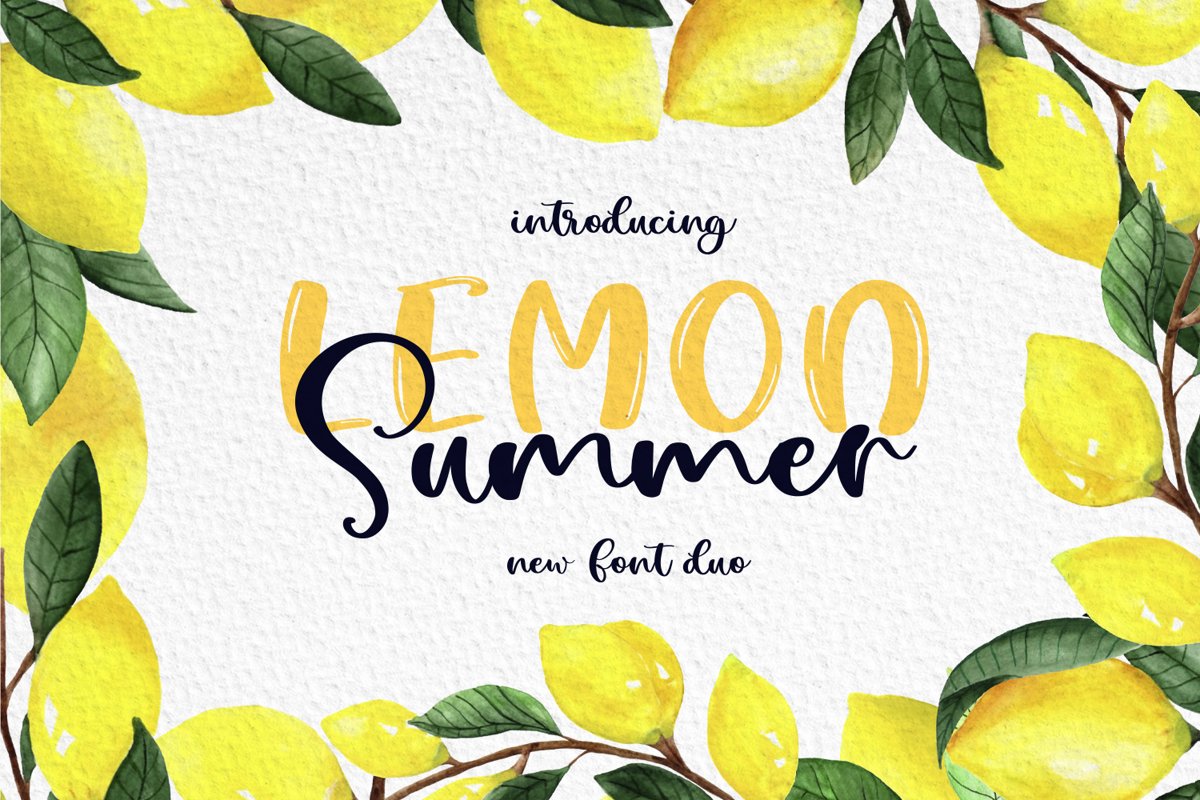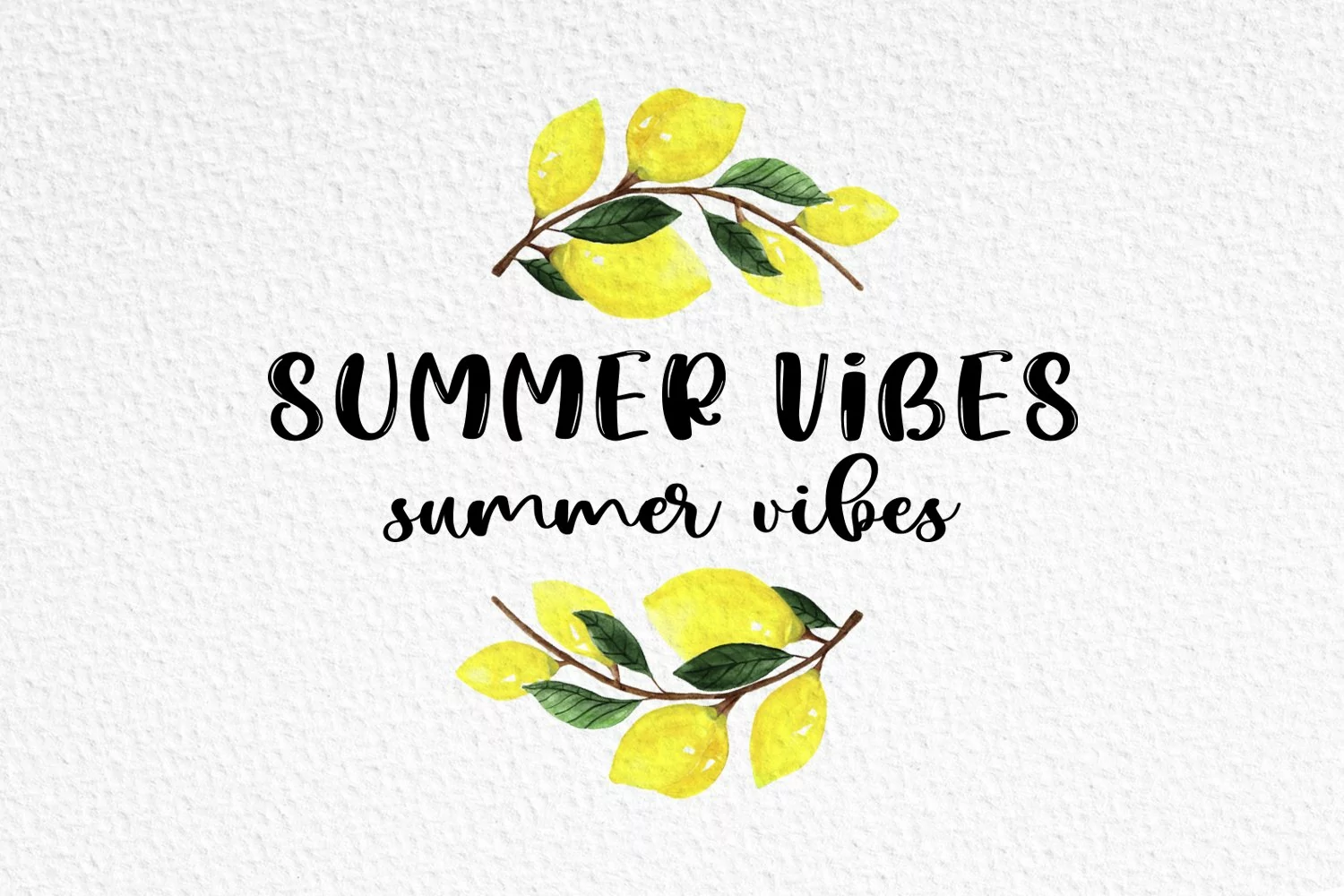
Lemon Summer Font Duo
Lemon Summer Font Duo - it's a new font duo
Lemon Summer.otf - all uppercase sans serif font, numbers, punctuation
Lemon Summer Script.otf - standart and alternate uppercase, lowercase, numbers, punctuation